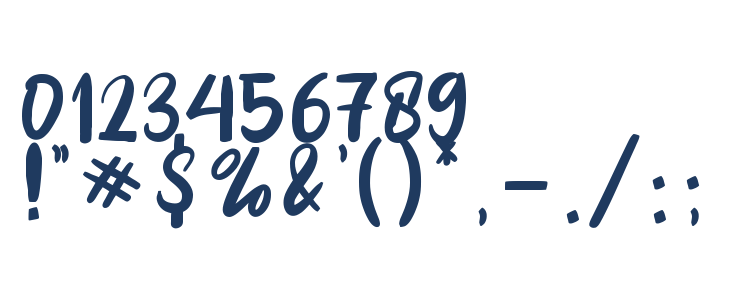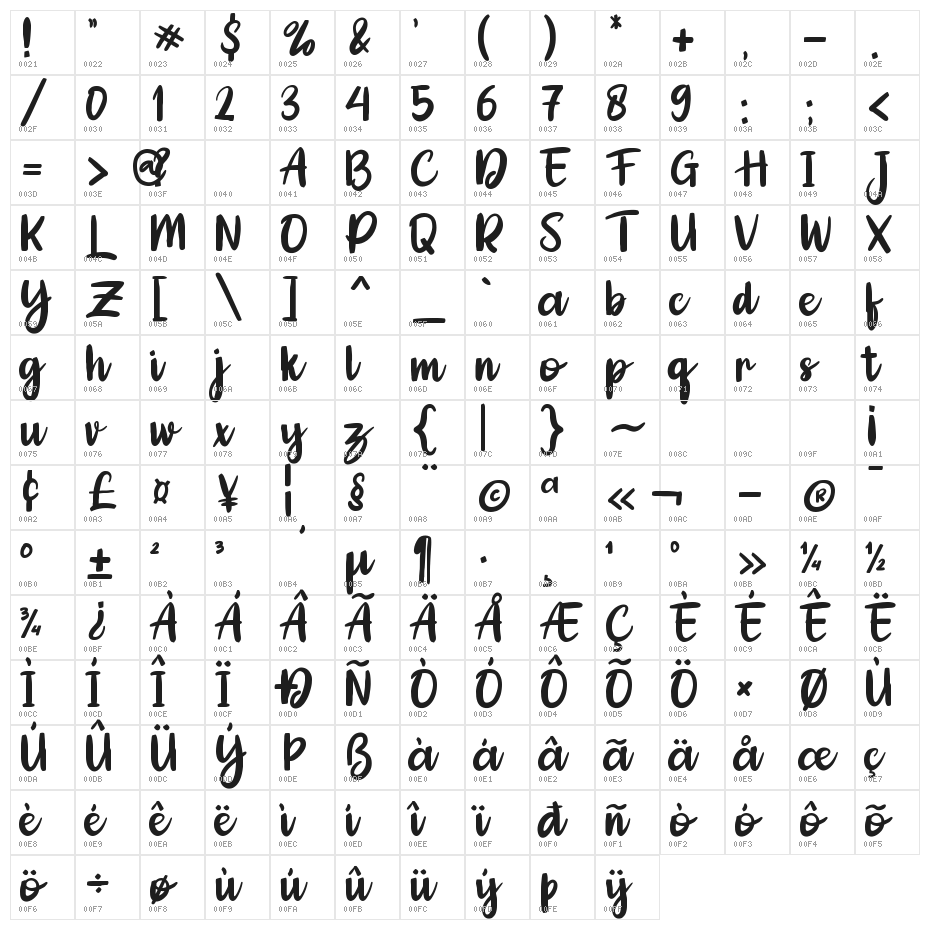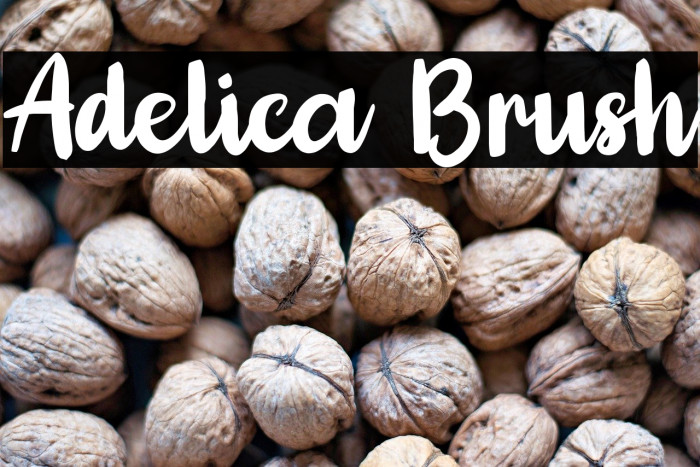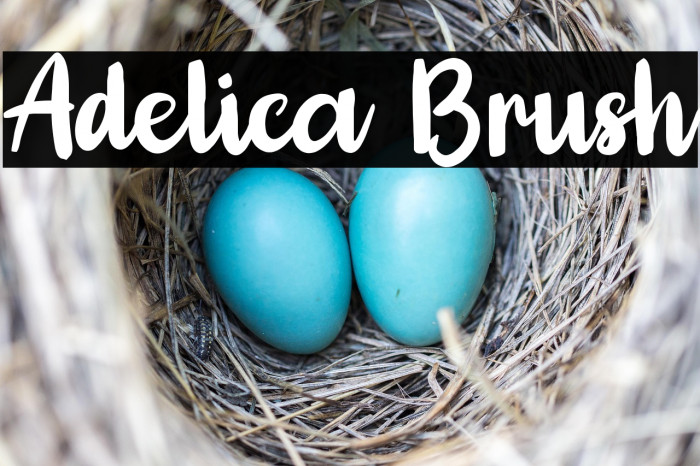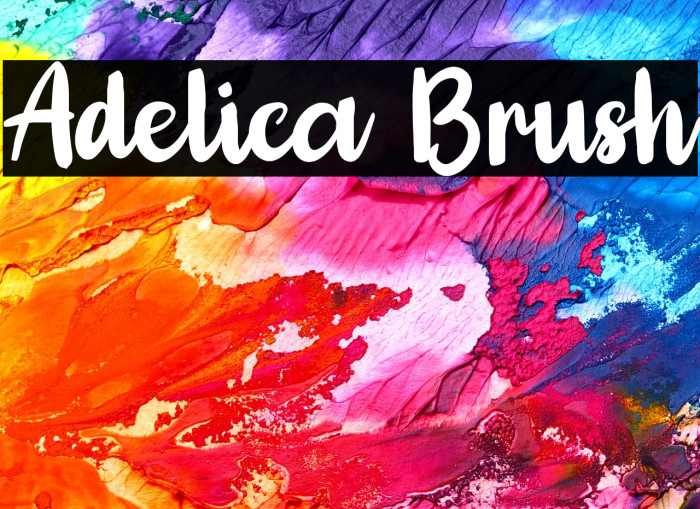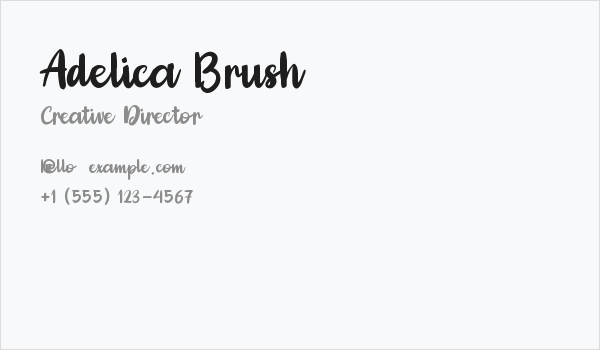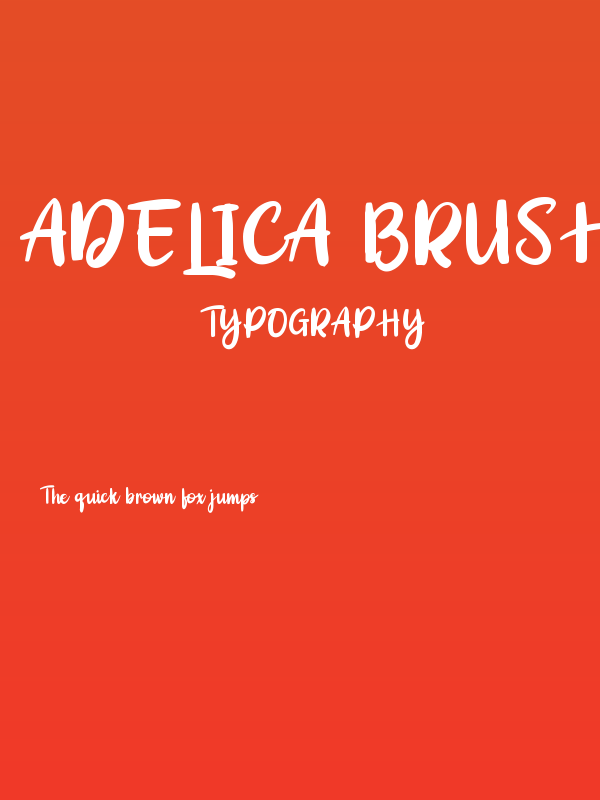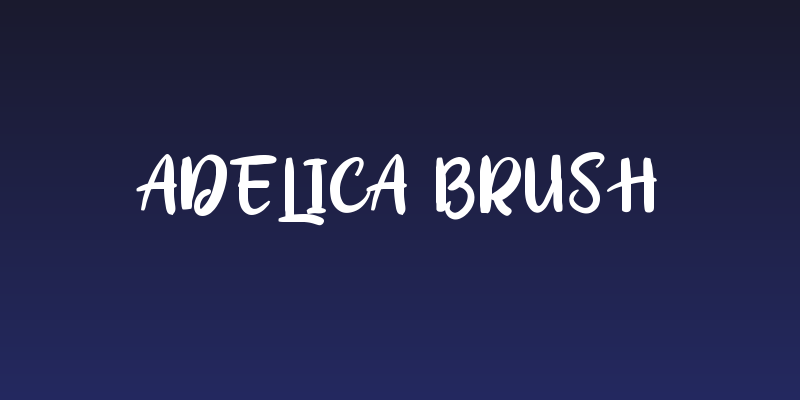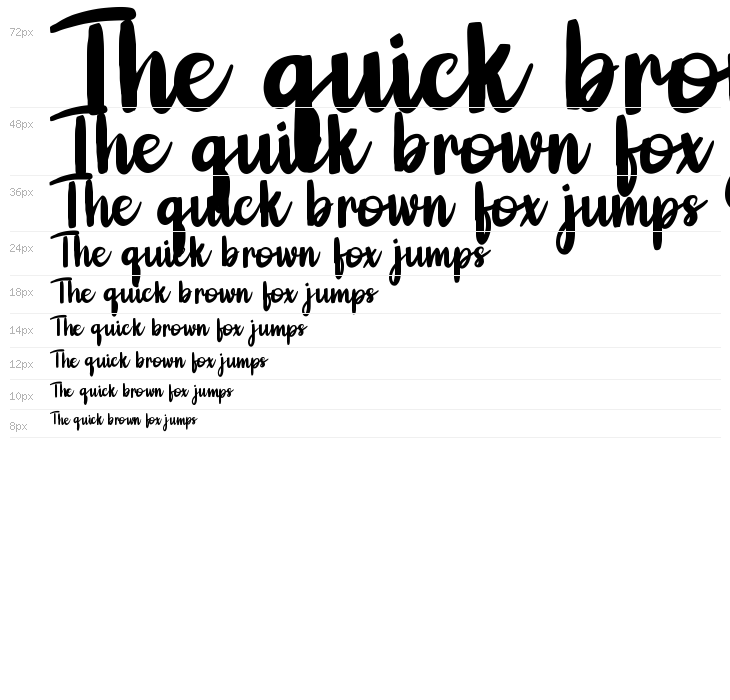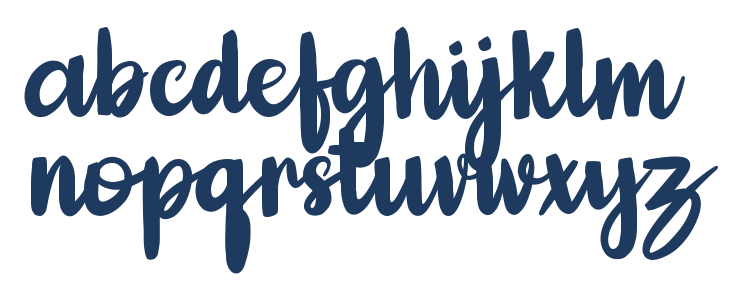
Adelica Brush Font
Adelica Brush Description
This font exudes a lively and energetic vibe, characterized by its bold and flowing brush strokes. The uppercase letters are robust and dynamic, while the lowercase letters maintain a consistent fluidity, giving the text a handwritten appearance. The numbers are equally bold, ensuring they stand out in any design. Special characters are crafted with the same attention to detail, making them seamlessly integrate with the rest of the font. The overall style is playful yet sophisticated, suitable for projects that require a personal touch.